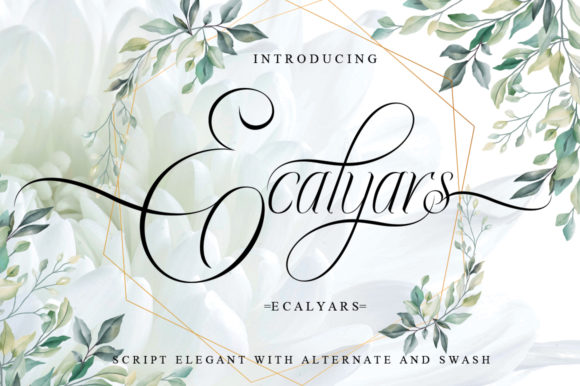
Ecalyars Font: Elevate Your Craft with Elegant Script
Ecalyars Font is a stunning script that brings a touch of classic calligraphy to the digital age. With its elegant and fancy feel, this beautiful font is perfect for crafters, designers, and anyone looking to add a level of sophistication to their projects. In this article, we’ll dive into the world of Ecalyars Font and explore how it can help take your craft ideas to the next level.
The Beauty of Ecalyars Font
Ecalyars Font is a script font that updates classic calligraphy with a modern twist. Its elegant strokes and flourishes evoke a sense of luxury and refinement, making it perfect for projects that require a touch of sophistication. Whether you’re working on a DIY craft, a design project, or a digital creation, Ecalyars Font is sure to impress.
What Makes Ecalyars Font Special?
So, what sets Ecalyars Font apart from other fonts? Here are a few key features that make it truly special:
- Elegant Script: Ecalyars Font features a beautiful, flowing script that’s perfect for creating elegant and sophisticated text.
- Fancy Feel: With its intricate strokes and flourishes, Ecalyars Font adds a touch of luxury to any project.
- Classic Calligraphy: Ecalyars Font updates classic calligraphy with a modern twist, making it perfect for crafters and designers who want to add a touch of tradition to their work.
- Versatile: Ecalyars Font can be used for a wide range of projects, from DIY crafts to digital creations.
Using Ecalyars Font for Your Craft Projects
Ecalyars Font is perfect for crafters who want to add a touch of elegance to their projects. Here are a few ideas for using Ecalyars Font in your craft projects:
- Handmade Cards: Use Ecalyars Font to create beautiful, handmade cards for special occasions.
- DIY Signs: Add a touch of elegance to your DIY signs with Ecalyars Font.
- Journaling: Use Ecalyars Font to add a touch of sophistication to your journaling projects.
- Scrapbooking: Ecalyars Font is perfect for scrapbooking projects that require a touch of elegance.
Tips for Using Ecalyars Font
Here are a few tips for using Ecalyars Font in your projects:
- Use it sparingly: Ecalyars Font is a statement font, so use it sparingly to add emphasis to your text.
- Pair it with other fonts: Ecalyars Font pairs well with other fonts, so don’t be afraid to experiment with different combinations.
- Experiment with colors: Ecalyars Font looks great in a variety of colors, so experiment with different colors to find the one that works best for your project.
Ecalyars Font is a beautiful and elegant script that updates classic calligraphy with a fancy feel. With its intricate strokes and flourishes, it’s perfect for crafters, designers, and anyone looking to add a touch of sophistication to their projects. Whether you’re working on a DIY craft, a design project, or a digital creation, Ecalyars Font is sure to impress. So why not give it a try and see how it can elevate your craft ideas to the next level?